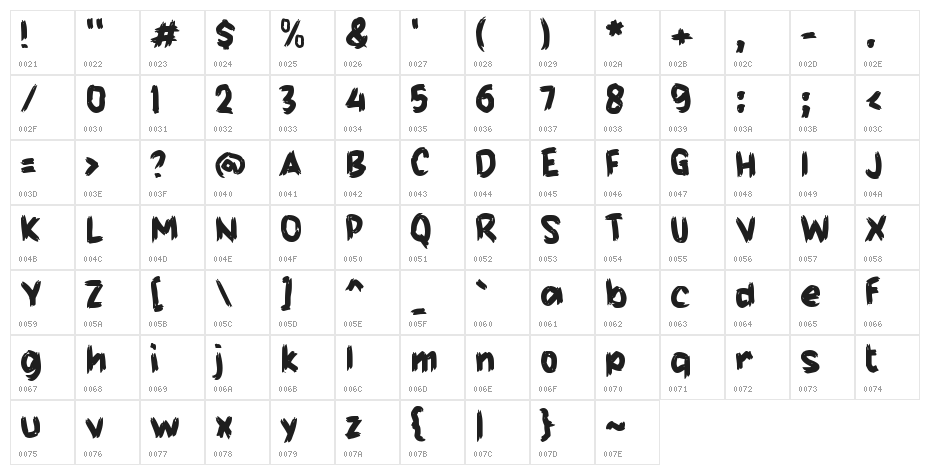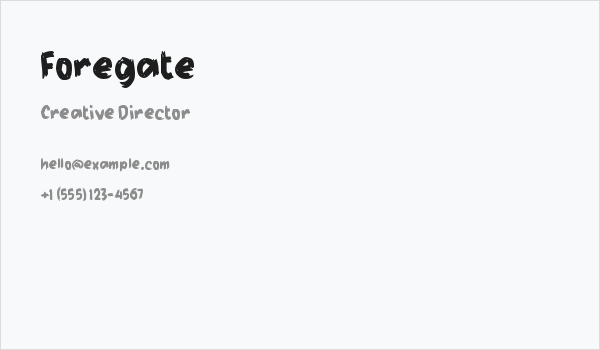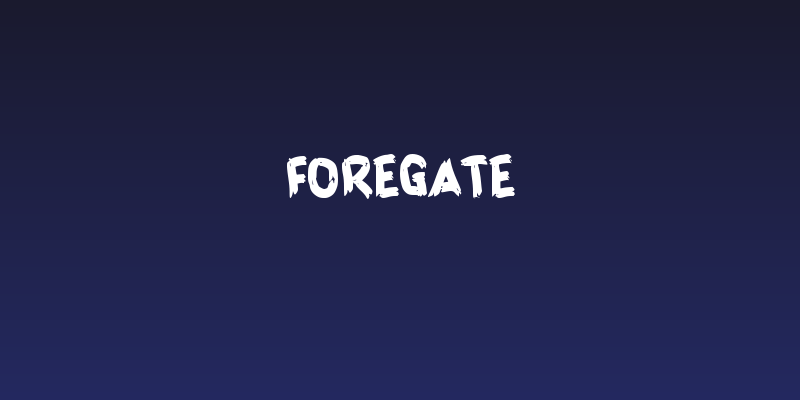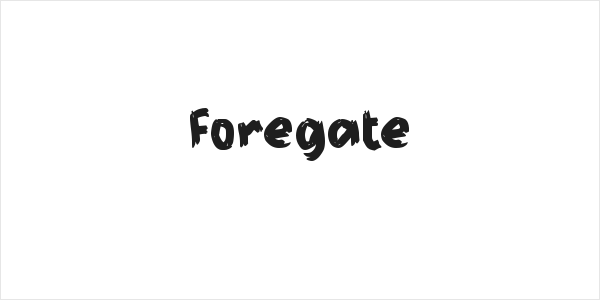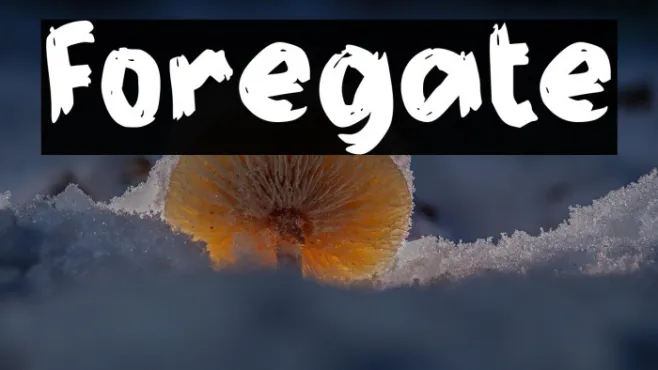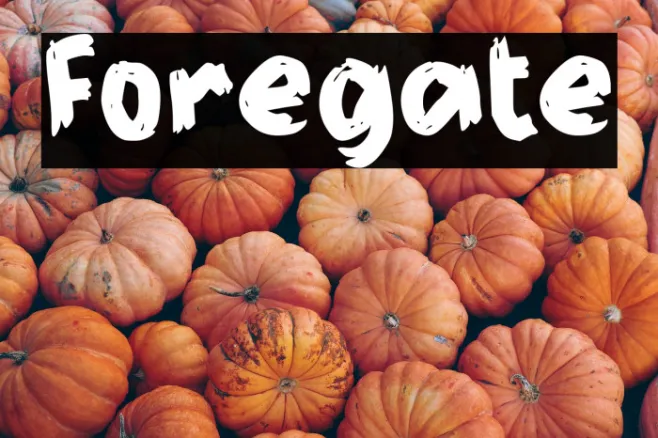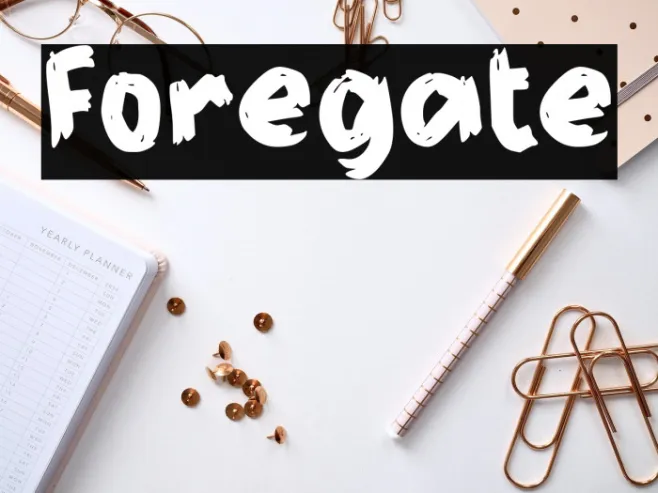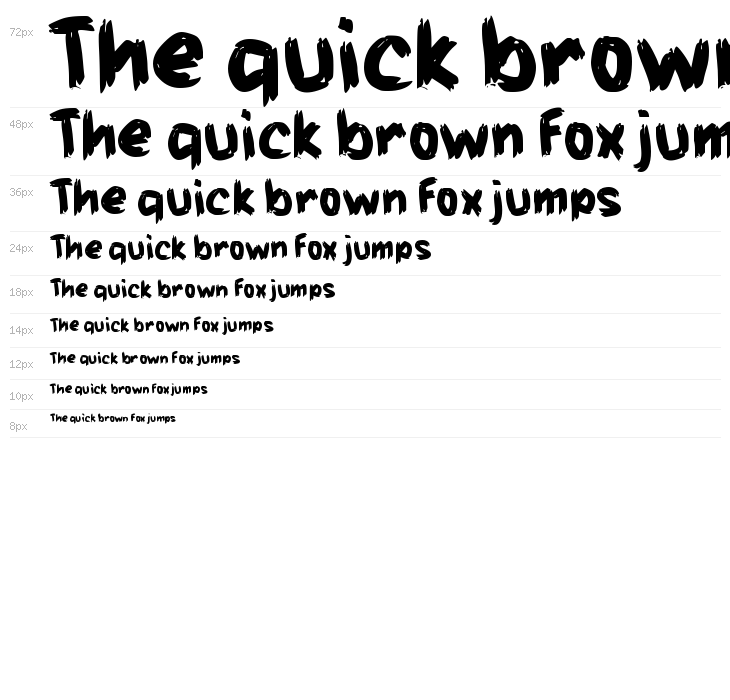
Foregate Font
Foregate Description
This font features a bold and expressive style, characterized by its brush-like strokes that convey a sense of energy and dynamism. The letters are irregular and have a hand-painted appearance, with varying thicknesses that add to its artistic flair. The uppercase and lowercase letters maintain a consistent style, while the numbers and special characters complement the overall aesthetic. This font is ideal for projects that require a bold statement or a creative touch, such as posters, album covers, or branding materials. Its unique design makes it stand out, capturing attention with its vibrant and lively presence.
FOREGATE UPPERCASE
FOREGATE LOWERCASE
FOREGATE OTHER CHARS
| Proposed Projects | Ideal for posters, album covers, branding materials, and any project needing a bold, artistic touch. |